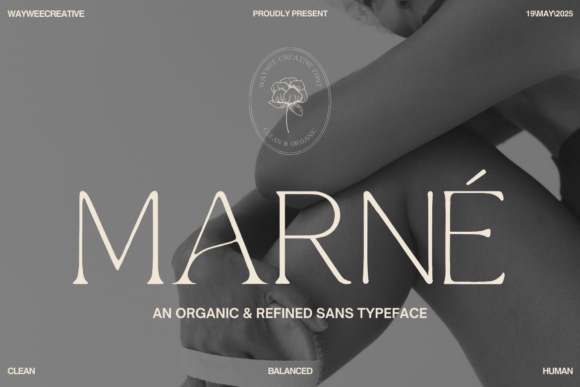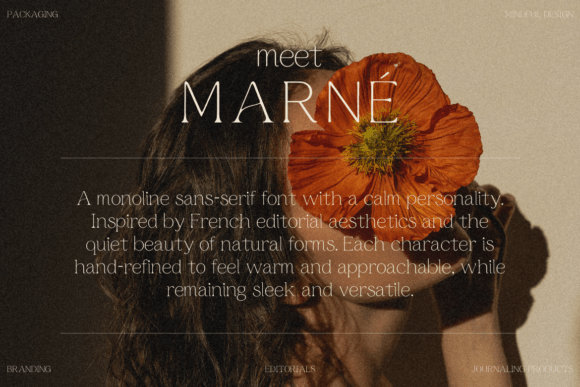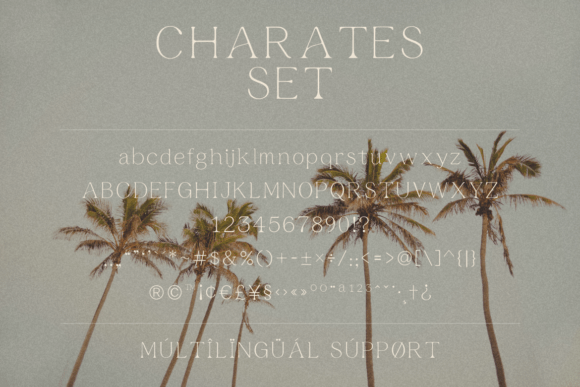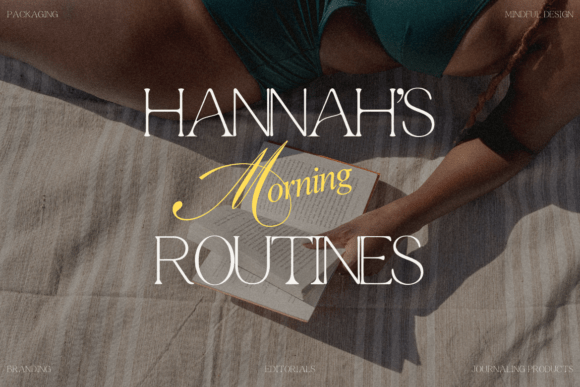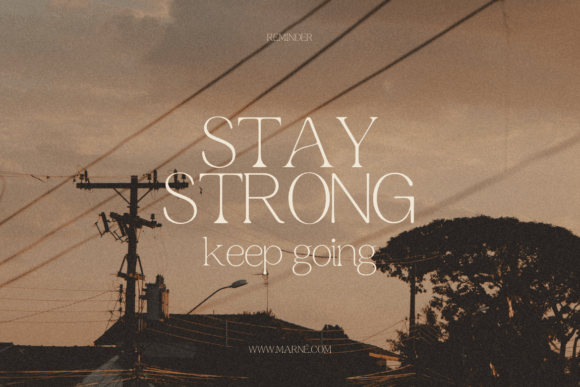
Marne Font
**MARNÉ – Minimalist Organic Sans Serif Font**
**MARNÉ** is a modern sans serif font that blends minimalist design with organic curves, making it perfect for branding, logo design, editorial layouts, and wellness-inspired projects. With clean lines and subtle handcrafted details, this typeface brings warmth and sophistication to any visual identity.
Designed for designers, creatives, and entrepreneurs, MARNÉ works beautifully across print and digital media—whether you’re creating a skincare brand, magazine spread, business card, or Instagram template.